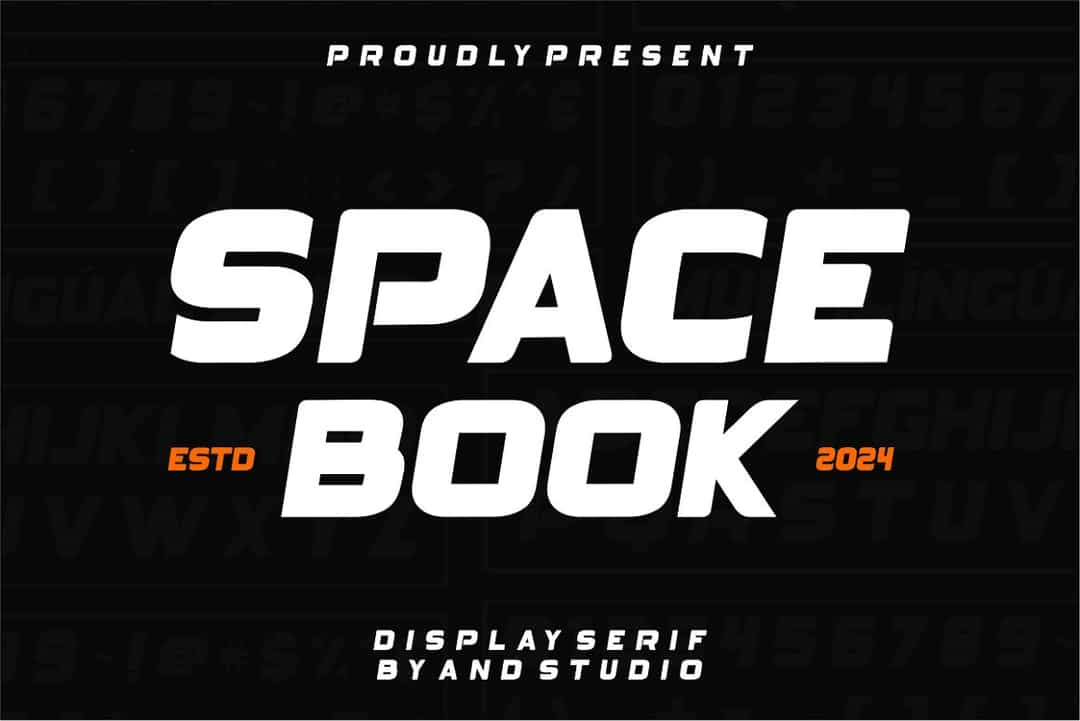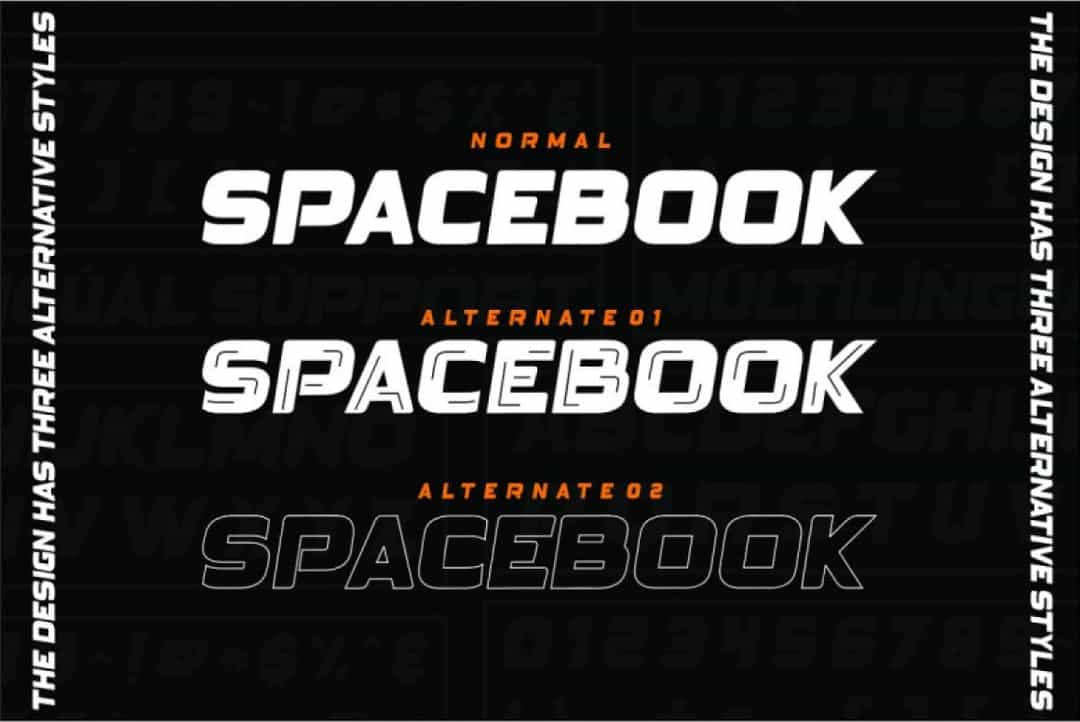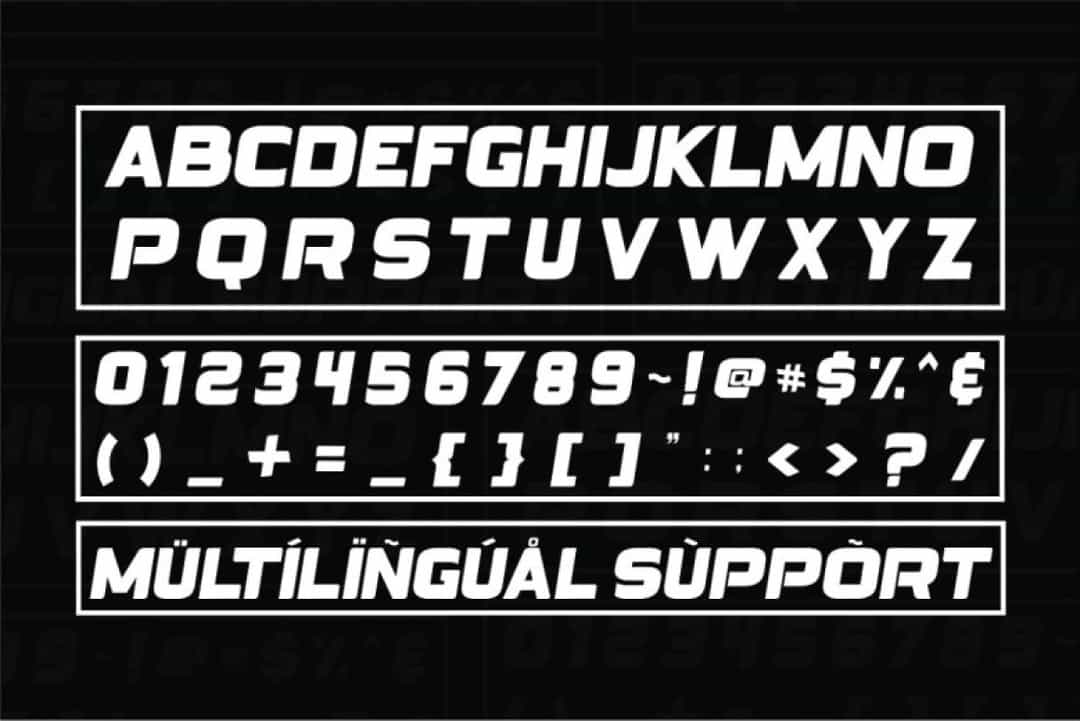
Discover Spacebook Font, part of the Sans Serif Display collection—a versatile and unique font perfect for adding a personal touch to your projects. Download it for free and enjoy crafting designs with style, from invitations to social media posts. This font is available exclusively for personal use, giving you the freedom to create without limits. Unlock your creativity with Spacebook Font today!
Spacebook” – is an elegant modern screen font which exudes cleanliness and vitality, adding an eye-catching look to any graphic design task. Boasting various caps styles this font not only showcases strong characters, but also allows for endless creativity!